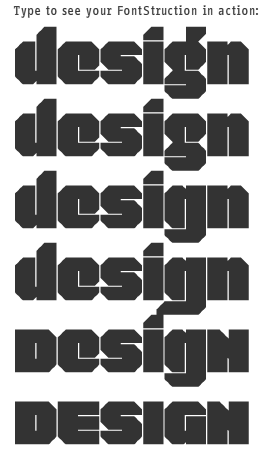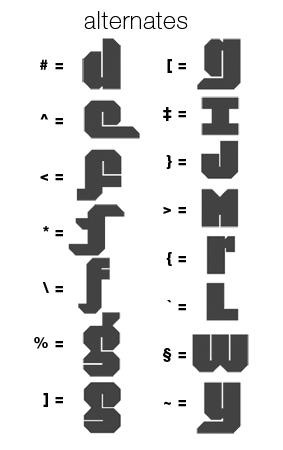
Roughly based on my NCD Black Square fontstruct, but massively scaled up to accommodate the internal lines.
I found that the small caps version works nicely when used in odd combinations with the lower case. Particularly the upper 'R'.
Most difficult characters were the F/f. I wasn't too keen on the open space they made, so I've added more than a few alternatives. The 'r', 'J' & 'L' gave me a similar visual dilemma.
I have also completed a version with Normal Caps. Which will be displayed soon.
ALTERNATIVES
============
# = d (stem facing other way)
^ = e (extended arm)
< = F (rounded top edges)
* = f (over lapping next character)
\ = f (alternative with extended tale)
] = g (old style)
% = g (old style with ear)
[ = g (extended foot)
‡ = I (alternative)
} = J (alternative)
> = M (Monospaced)
{ = r (shortened arm)
` = S (alternative)
§ = W (alternative)
~ = y (extended foot)
I've even got a version of it with a ear. I may do a serif version, in which I think it will work better.
Here are a few variations on the 'g'
It does makes the font more distinctive, but it wasn't as versatile. Having the option to make your own choice keeps everyone happy :-)
definitely great style on this one... love the samples as well! really cool as well to see how much time you put into working on alternatives... that's true professional dedication!